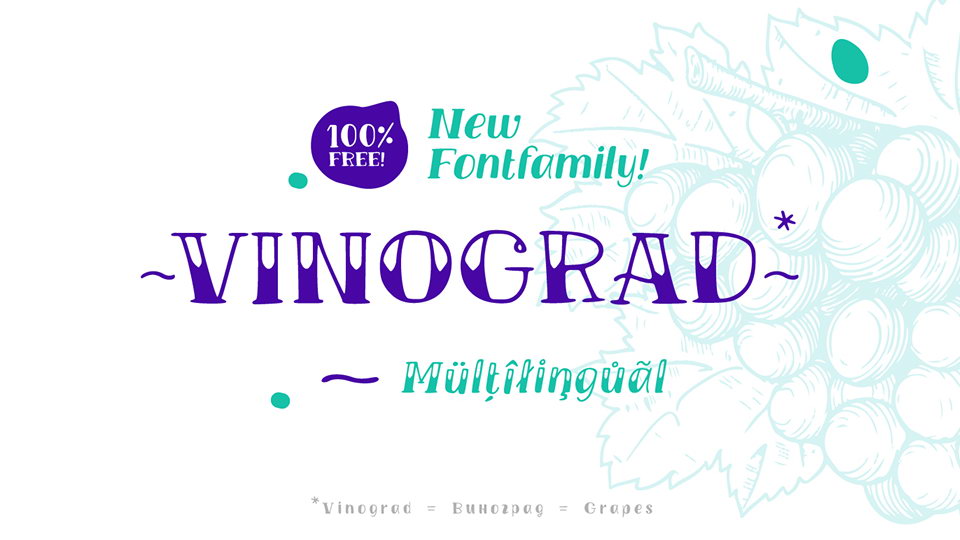
Download TM Vinograd font family, a lovely handwritten display typeface very specific and contrast with 2 styles, 2 Inscriptions, 600+ glyphs and extended Cyrillic and Latin.
Designer: Vova Egoshin